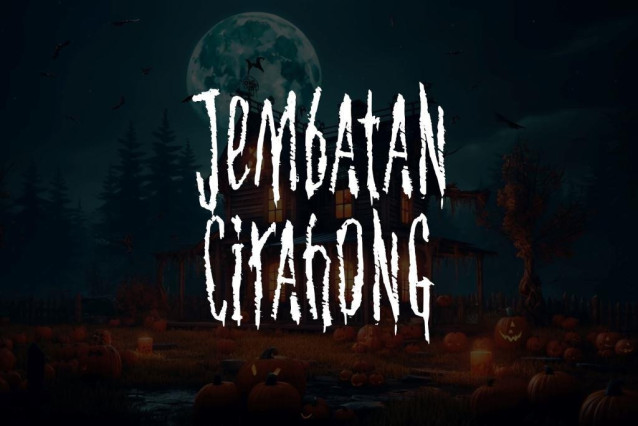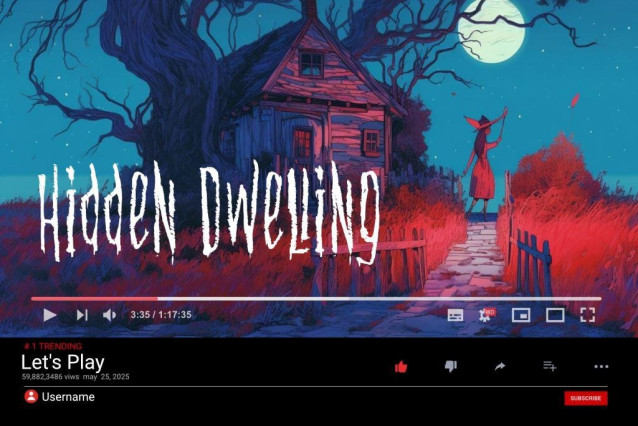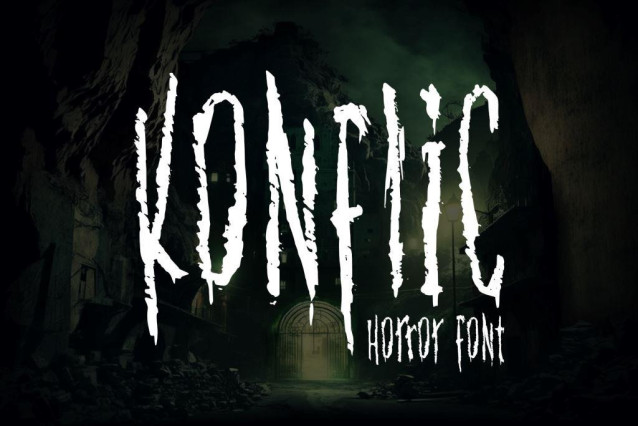
Konflic Font
Konflic Font is a unique and captivating horror font that creates a dark and mysterious atmosphere. The font’s name itself reflects elements of tension and darkness. It has been carefully designed to create an ink-like, bloodstain effect, making it feel unsettling and ominous.
Konflic is the perfect choice for creating titles or design elements related to horror themes. Whether for film posters, spine-chilling books, or creative projects that require a foreboding and dark touch, this font will help you set the stage for an atmosphere of tension and suspense.